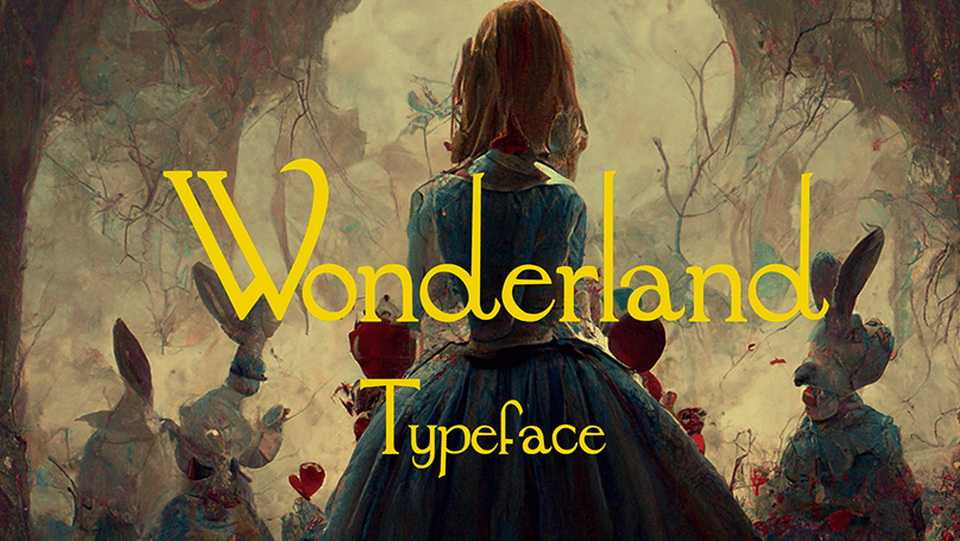
Download Wonderland font, a unique creation that rescues the typography of silent film era signage from the Golden Age of cinema, through the digitalization of authentic photographs of these signs.